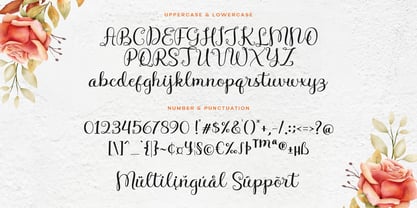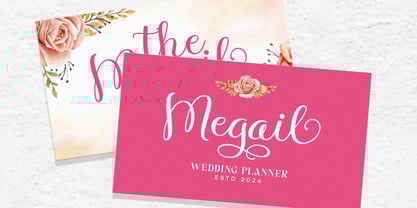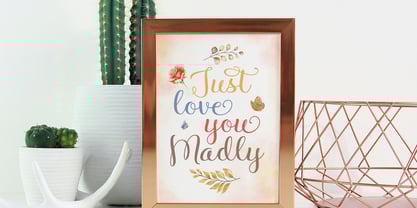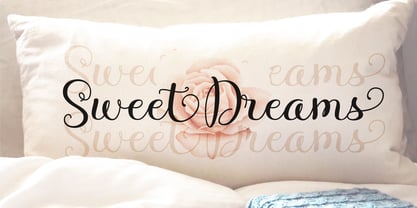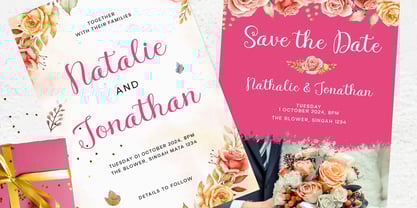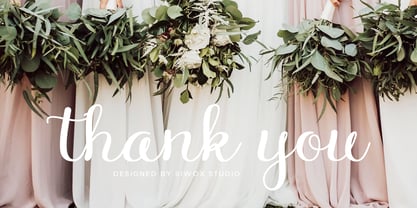
Nurila Script
by Siwox Studios
The Nurila Script Font Family was designed by Rizaldi Wandani and published by Siwox Studios. Nurila Script contains 1 styles. More about this family
Nurila Script font feels equally charming and elegant. It looks stunning on wedding invitations, thank you cards, quotes, greeting cards, logos, business cards and every other design which needs a handwritten touch. It is also PUA encoded which means you can access all of the glyphs and swashes with ease!